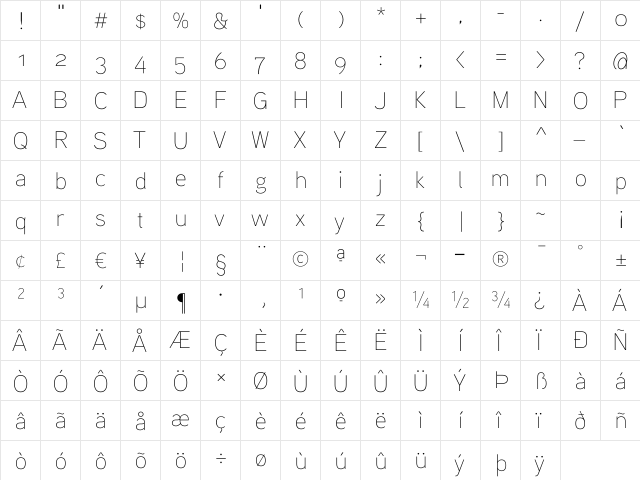
Aaux ProThin OSF Regular
Design Context for Aaux ProThin OSF Typeface
Aaux ProThin OSF offers clean, dependable letterforms without strong stylistic allegiance, making it a practical choice for designers who need flexibility. The delicate stroke weight brings airiness and refinement to layouts.
Pro Tip: Pair Aaux ProThin OSF with a font of contrasting weight or personality to build a more expressive typographic hierarchy.